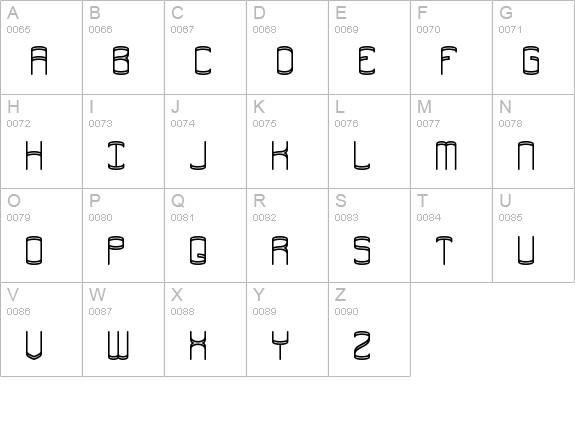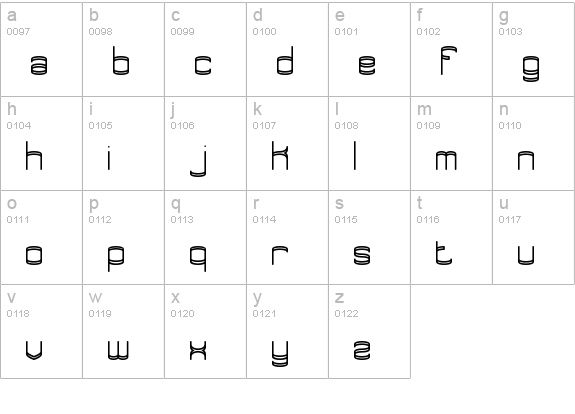
Enthuse BRK Font Details
Enthuse BRK font is a stylish and modern typeface that exudes energy and enthusiasm. With its bold and dynamic letterforms, this font is perfect for making a strong statement in your designs. Whether you're creating posters, logos, or branding materials, Enthuse BRK will add a touch of excitement to your projects. The best part? Enthuse BRK font is completely free to download at FontsMarket.com, making it accessible to all designers looking to add a bold and energetic flair to their work. Don't miss out on this opportunity to elevate your designs with the vibrant energy of Enthuse BRK font. Download it today and let your creativity shine!